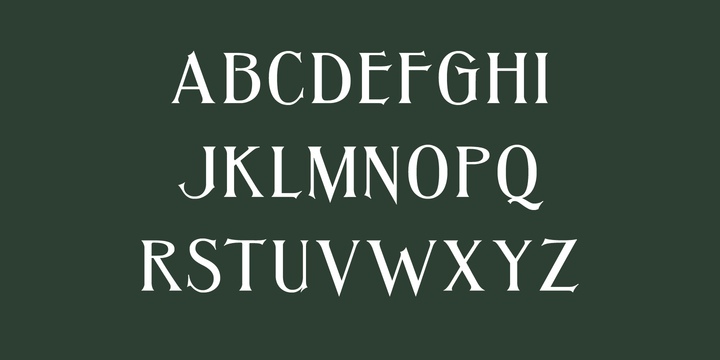
Jungle Font
Jungle Font is perfect for adventure tourism branding, tropical resort signage, rainforest conservation campaigns, eco-lodge materials, safari tour companies, exotic restaurant menus, wildlife photography portfolios, adventure gear packaging, tropical product labels, nature documentaries, environmental education materials, and wild expedition communications.
What makes Jungle Font exciting is its untamed vitality that captures the primal energy and lush abundance of tropical rainforests through wild letterforms that grow with organic intensity and natural freedom. This captivating typeface embodies the essence of wilderness adventure and natural diversity, combining organic textures with primitive strength that resonates with audiences seeking authentic jungle experiences and connection to Earth's most biodiverse ecosystems. The font's wild character and natural variations create immediate association with adventure while maintaining the readability essential for modern eco-tourism and conservation applications. Its untamed personality makes it perfect for brands that want to communicate wilderness authenticity, natural power, and the transformative experience of jungle exploration and rainforest discovery.
The Jungle Font family includes regular and bold weights, featuring wild alternates, organic ligatures, and rainforest-inspired design elements. The character set incorporates wildlife symbols, tropical numerals, and adventurous punctuation marks that enhance the font's jungle character and provide designers with comprehensive wilderness typography solutions for authentic adventure brand expressions.